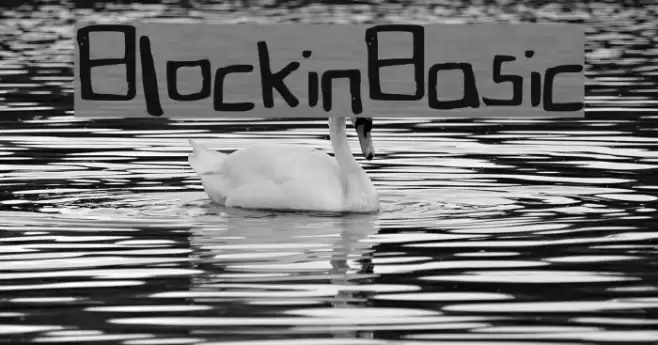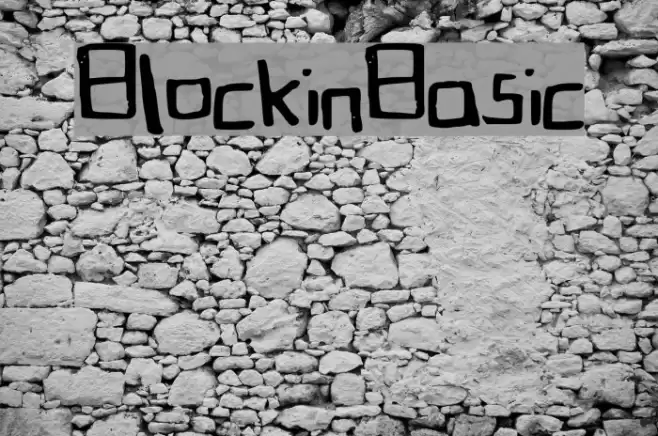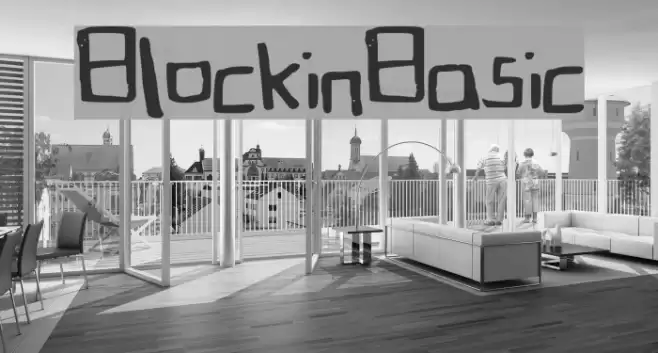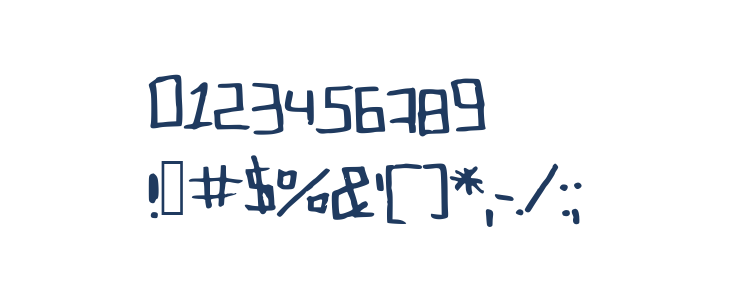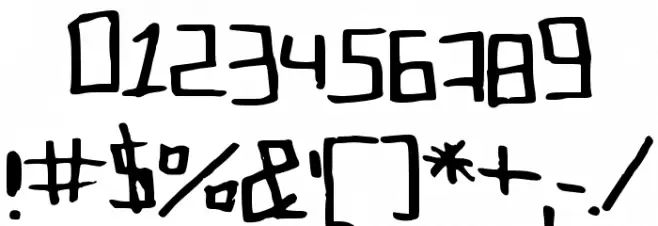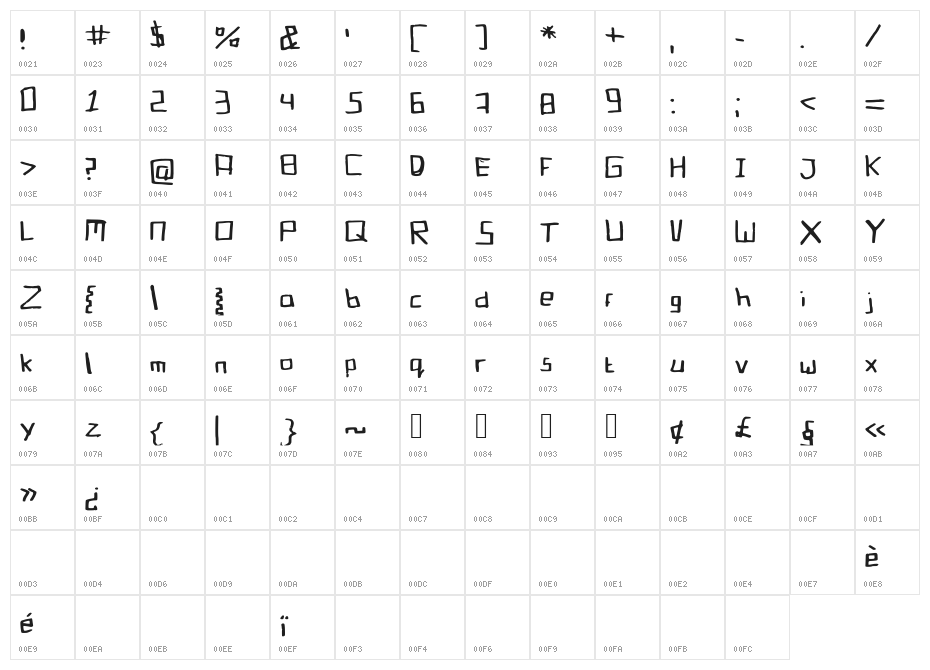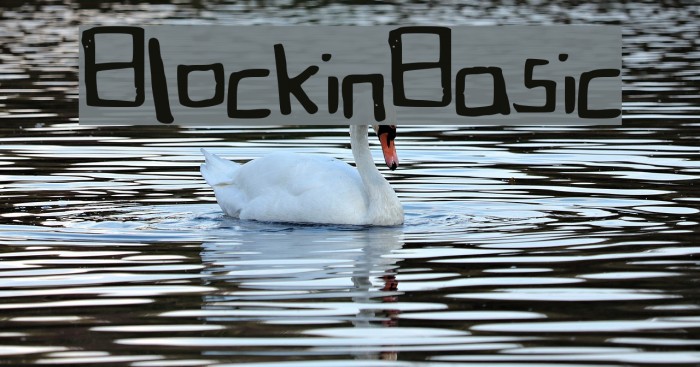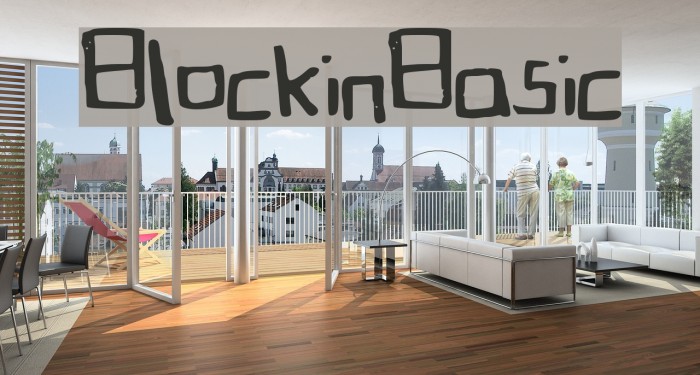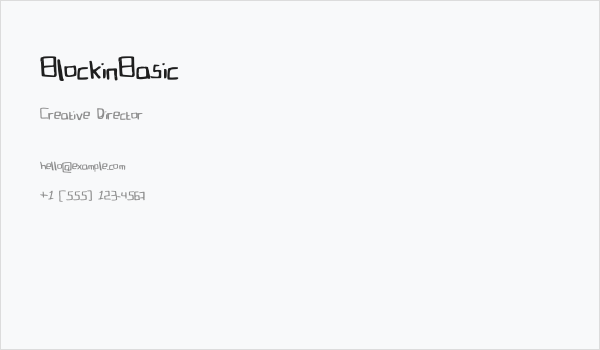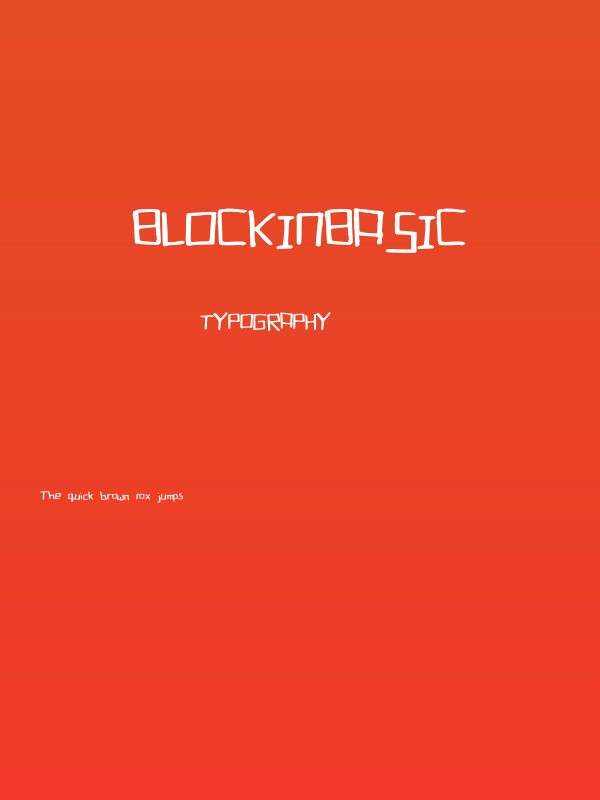
BlockinBasic Font
BlockinBasic Description
This font features a bold, hand-drawn style with a playful and informal appearance. The characters are blocky and slightly irregular, giving them a unique and artistic feel. The uppercase and lowercase letters maintain a consistent width, while the numbers and special characters complement the overall design. The strokes are thick and uneven, adding to the casual and creative vibe. This font is ideal for projects that require a personal touch or a sense of whimsy.
A bold, hand-drawn font with a playful, informal style from Uncategorized fonts.
- Proposed Projects: Ideal for children's books, comic strips, casual posters, and creative branding.